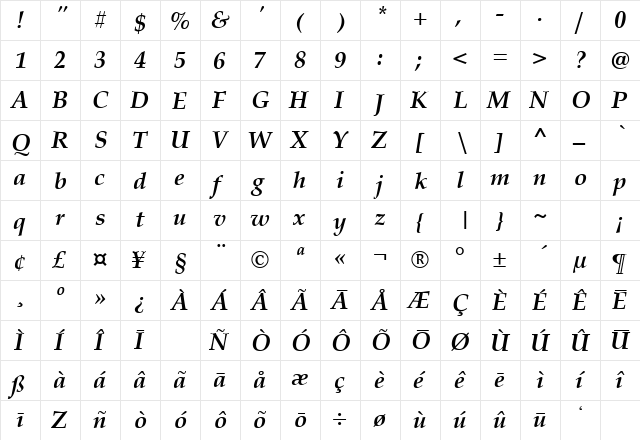
HI Piilani Bold Italic Regular
Design Context for HI Piilani Bold Italic Typeface
HI Piilani Bold Italic is a composed and adaptable typeface that performs quietly and consistently across a wide range of design contexts. The slanted form adds forward momentum and visual energy. The heavy weight commands attention and anchors typographic hierarchies.
Pro Tip: Use HI Piilani Bold Italic for emphasis, pull quotes, and subheadings where its slanted energy can add rhythm to the layout.